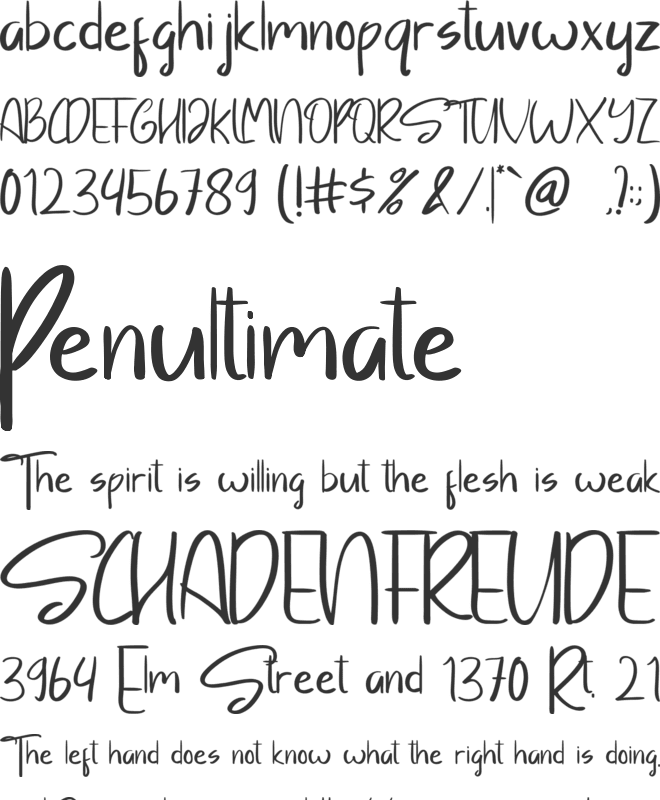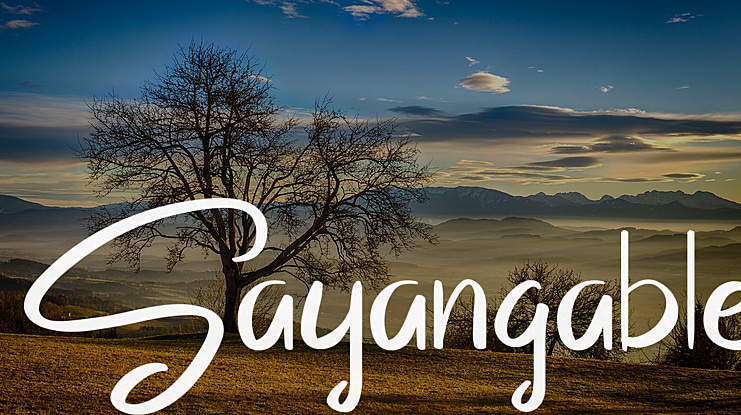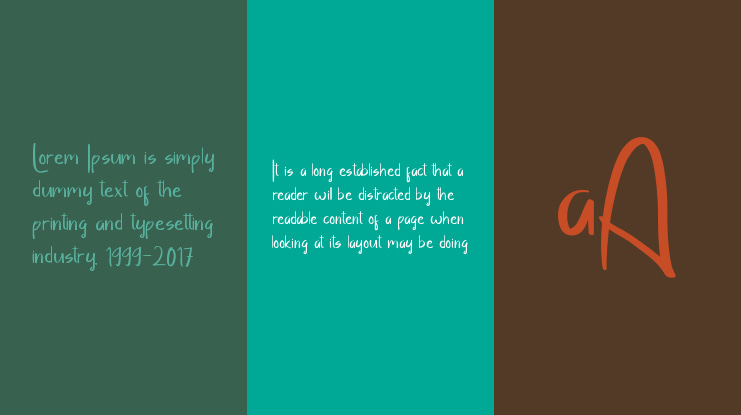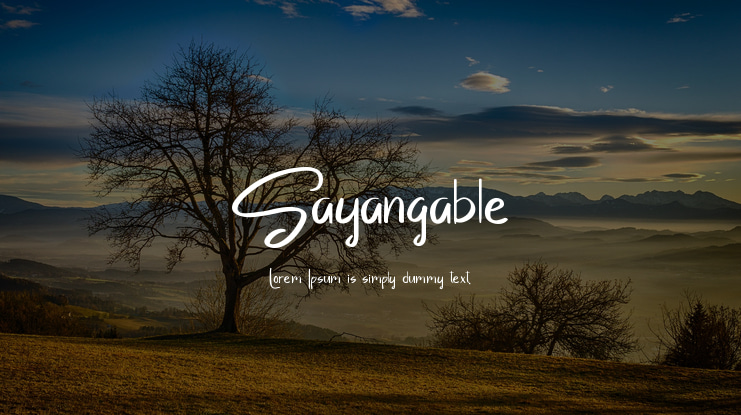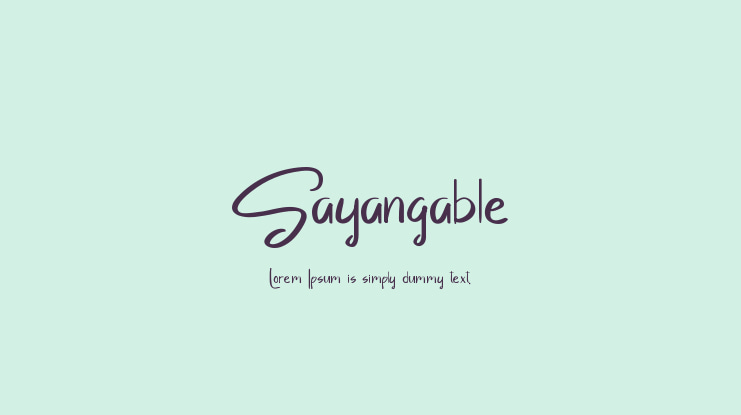
Sayangable is a modern hand drawn font with a classic touch. It has a contemporary, yet natural look which can be used for logos, branding, invitations, wedding designs, social media posts, and much more.